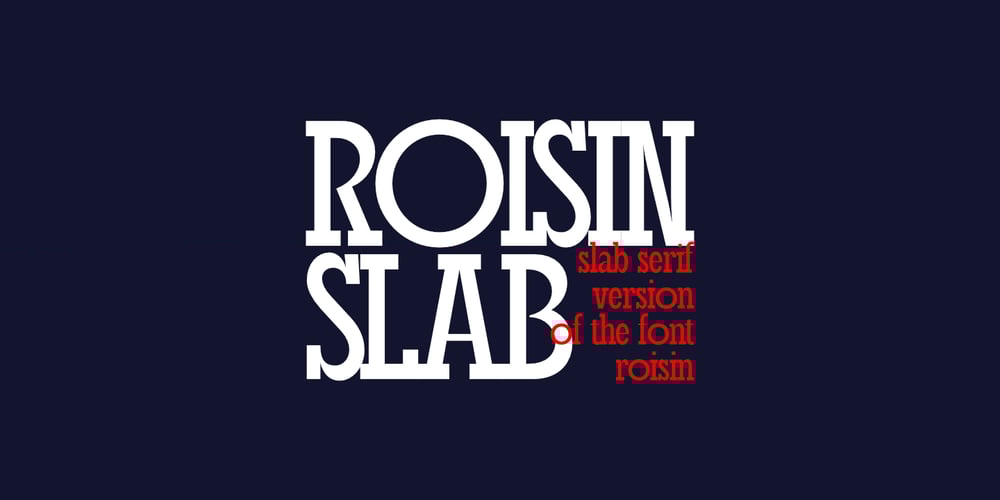
Roisin Slab Font Family was designed by Muhammad Hastian and published by Hazztype. Roisin Slab contains 1 styles and family package options. Roisin Slab is the slab serif version of the font Roisin, a captivating slab serif typeface that seamlessly marries the sophistication of condensed letterforms with the sturdy presence of thick, block-like serifs. This harmonious fusion results in a font that balances elegance, readability, and versatility.Its refined letterforms blend classic design elements with a contemporary twist, featuring robust slab serifs that provide a solid foundation while retaining the graceful curves of wide circular figures. This makes Roisin Slab ideal for a wide range of projects. Whether you’re designing invitations, branding materials, or editorial layouts, Roisin Slab adds a touch of sophistication and charm with a bold, modern edge.